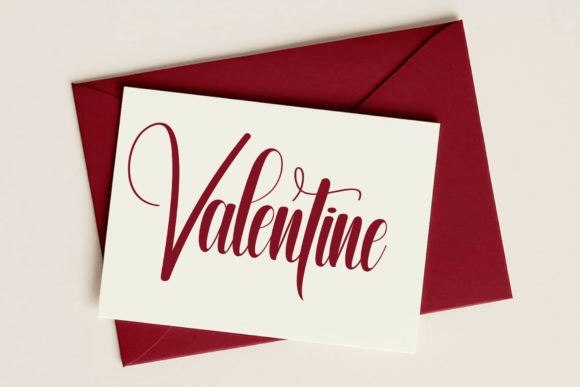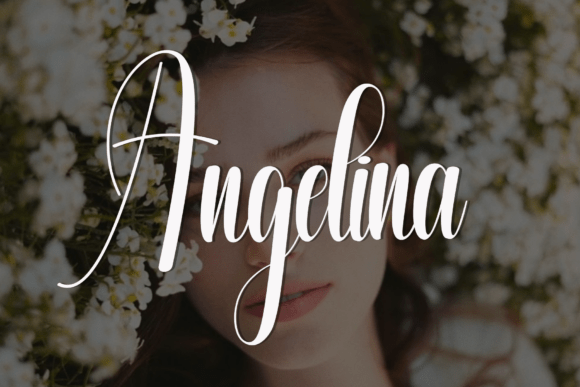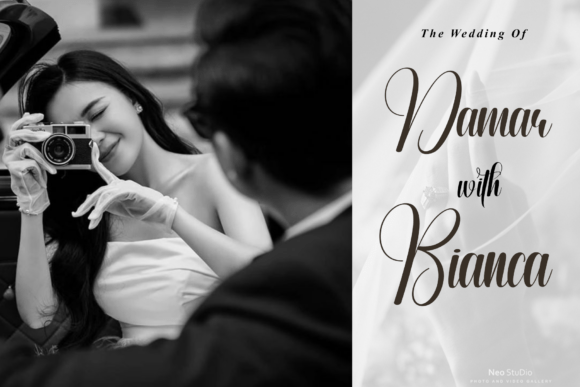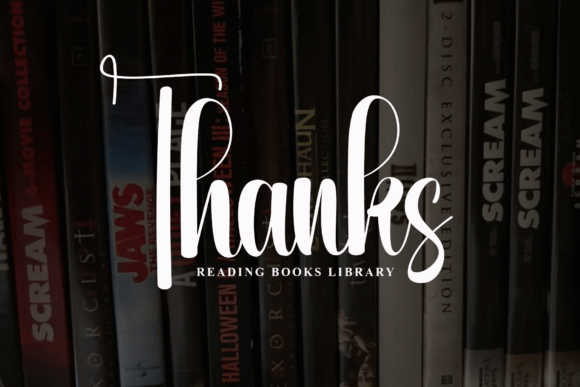
Discover the Healing Font: A Timeless Handwritten Gem for Designers and Crafters
In the world of typography, fonts play a crucial role in conveying emotions and setting the tone for a brand or design. For designers and crafters seeking a unique and beautiful touch, the Healing Font is a lovely and timeless handwritten font that has gained popularity for its stunning appearance and versatility. In this article, we’ll dive into the features and benefits of the Healing Font, exploring why it’s an excellent choice for creating eye-catching logos, branding, and quotes.
The Unique Charm of Healing Font
The Healing Font boasts a distinctive, handcrafted feel that sets it apart from more traditional fonts. Every letter has a unique and beautiful touch, which injects a sense of personality and warmth into any design. The font’s handwritten nature gives it a personal, approachable feel, making it perfect for designs that require a human touch. Whether you’re working on a logo, branding materials, or inspirational quotes, the Healing Font brings a level of sophistication and elegance that’s hard to match.
Key Features of Healing Font
- Handwritten with love: Each letter is carefully crafted by hand, ensuring a unique and authentic look.
- Timeless appeal: The font’s classic, elegant feel ensures it won’t go out of style anytime soon.
- Versatile: Suitable for a wide range of design projects, from logos and branding to quotes and more.
- Eye-catching: The font’s distinctive style is sure to grab attention and leave a lasting impression.
Why Designers and Crafters Love Healing Font
So, what makes the Healing Font a favorite among designers and crafters? For starters, its unique and beautiful touch adds a level of depth and emotion to designs that can be hard to achieve with more traditional fonts. Additionally, the font’s versatility means it can be used in a variety of contexts, from elegant branding materials to inspirational quotes and social media graphics.
Using Healing Font for Logos and Branding
When it comes to creating logos and branding materials, the Healing Font is an excellent choice. Its elegant, sophisticated feel makes it perfect for businesses and brands looking to establish a strong visual identity. The font’s unique touch also helps to create a memorable and recognizable brand image, which is essential for building customer loyalty and trust.
Tips for Getting the Most Out of Healing Font
To make the most of the Healing Font, here are a few tips to keep in mind:
- Experiment with colors: The Healing Font looks great in a variety of colors, so don’t be afraid to try out different options to find the perfect fit for your design.
- Mix and match: Combine the Healing Font with other fonts to create a unique and visually appealing design.
- Pay attention to spacing: Make sure to adjust the spacing between letters and words to ensure a clean and easy-to-read design.
In conclusion, the Healing Font is a timeless handwritten gem that’s perfect for designers and crafters looking to add a touch of elegance and sophistication to their designs. With its unique and beautiful touch, versatility, and eye-catching appeal, it’s an excellent choice for creating logos, branding materials, quotes, and more. Whether you’re a seasoned designer or just starting out, the Healing Font is definitely worth checking out.